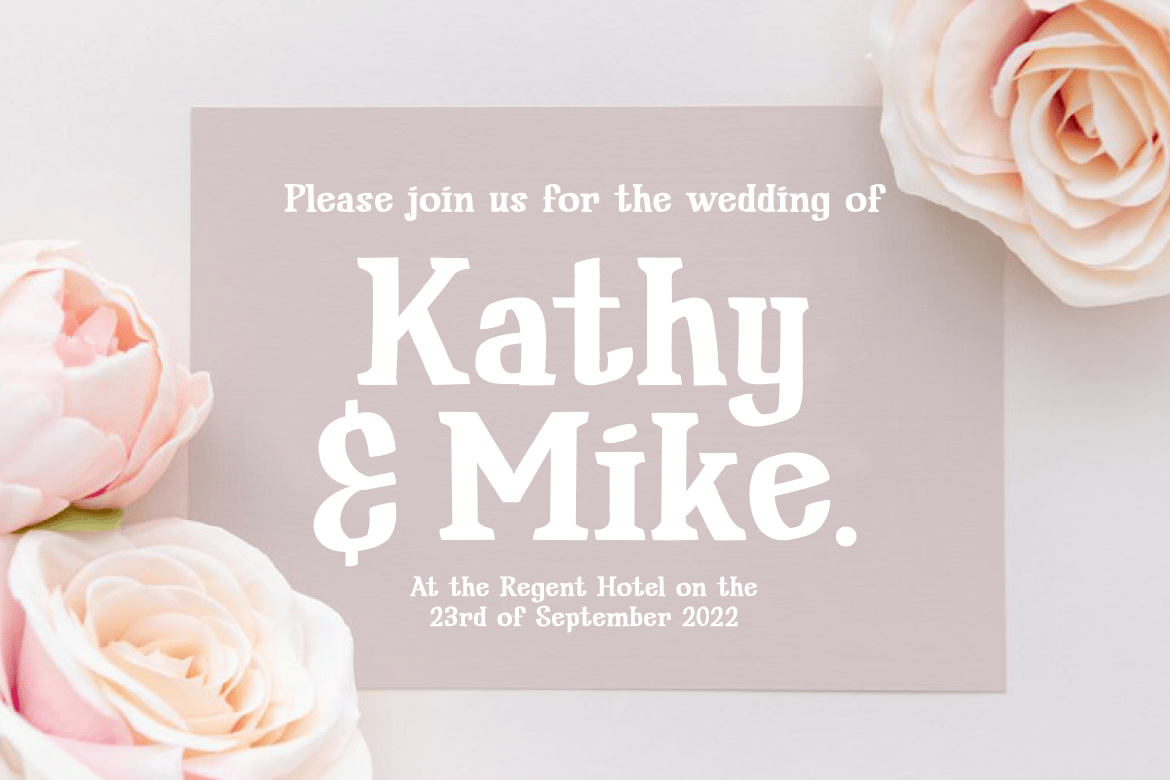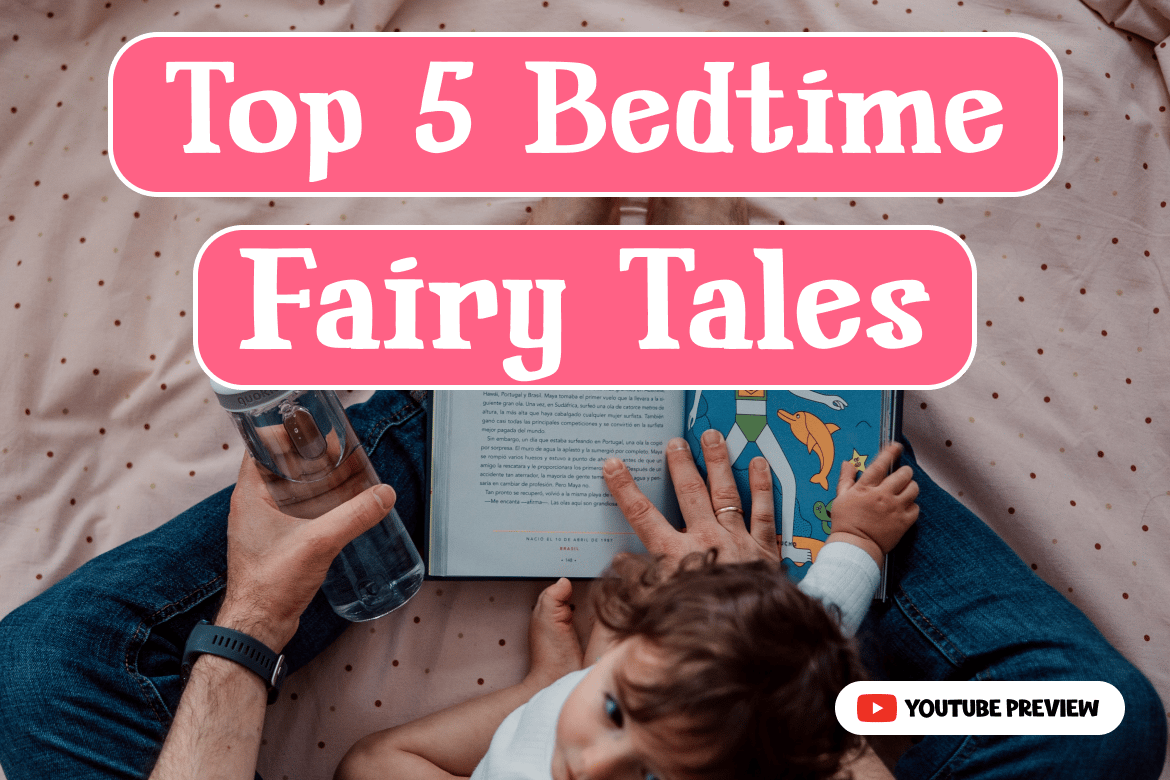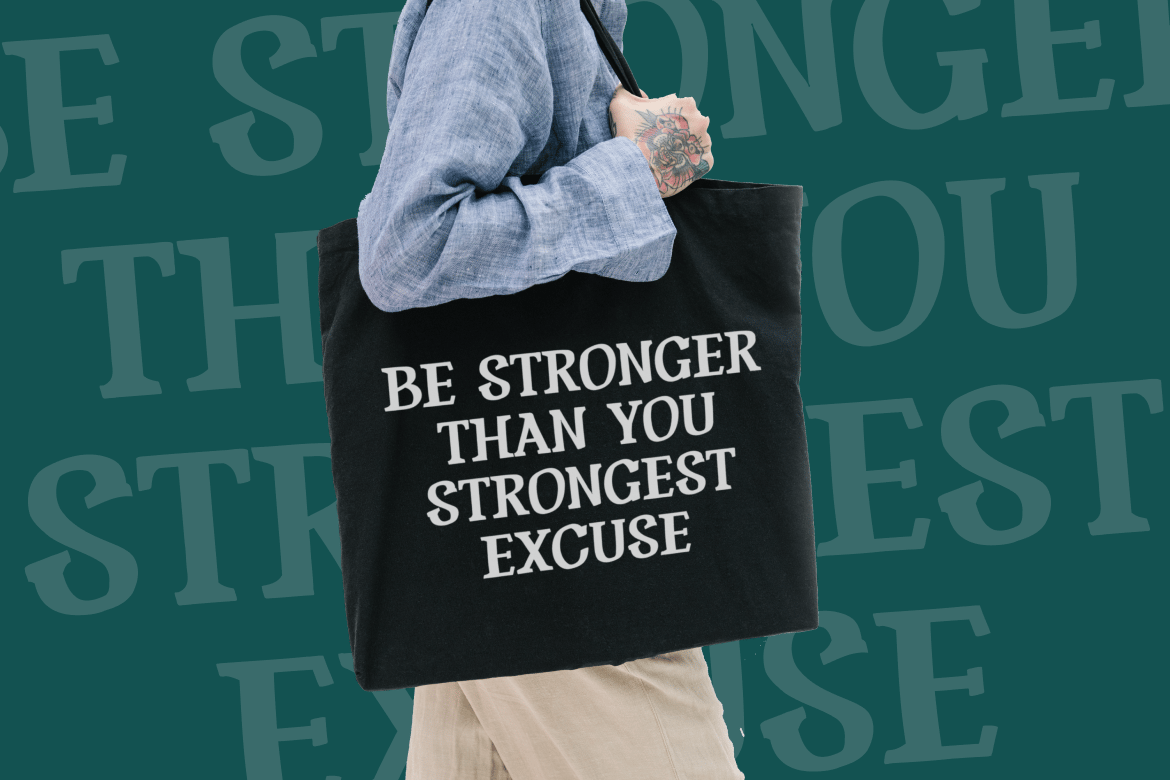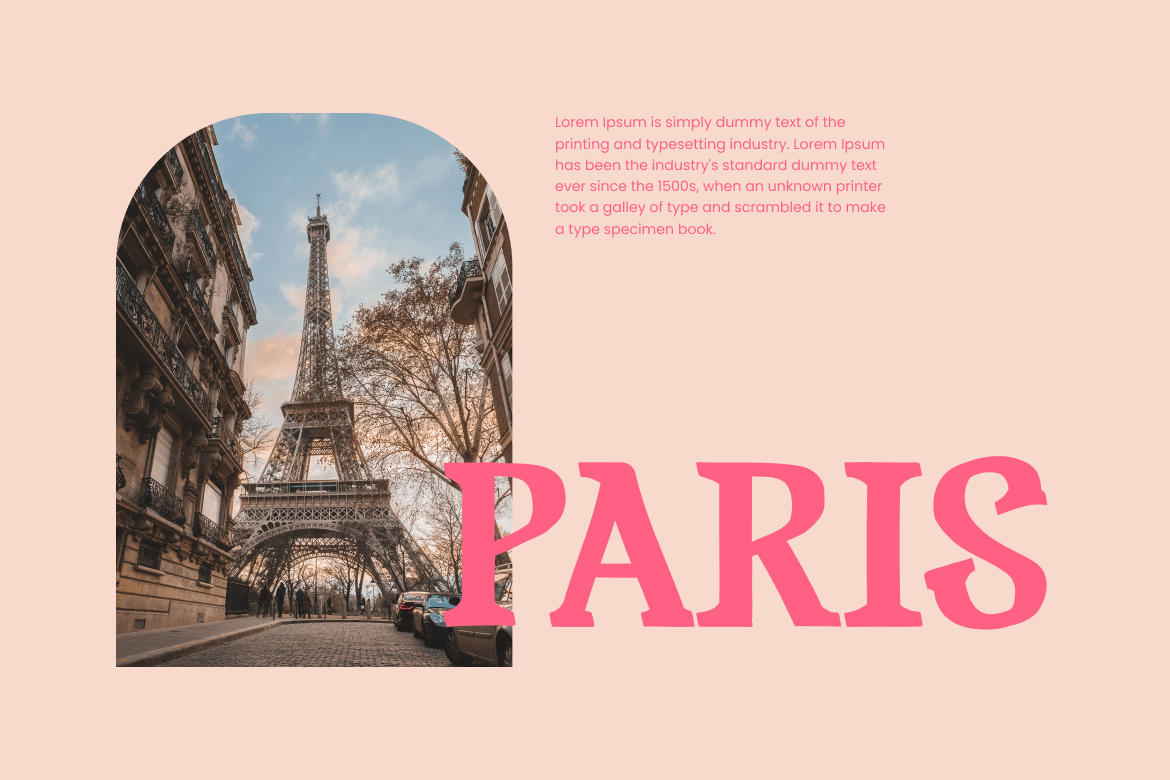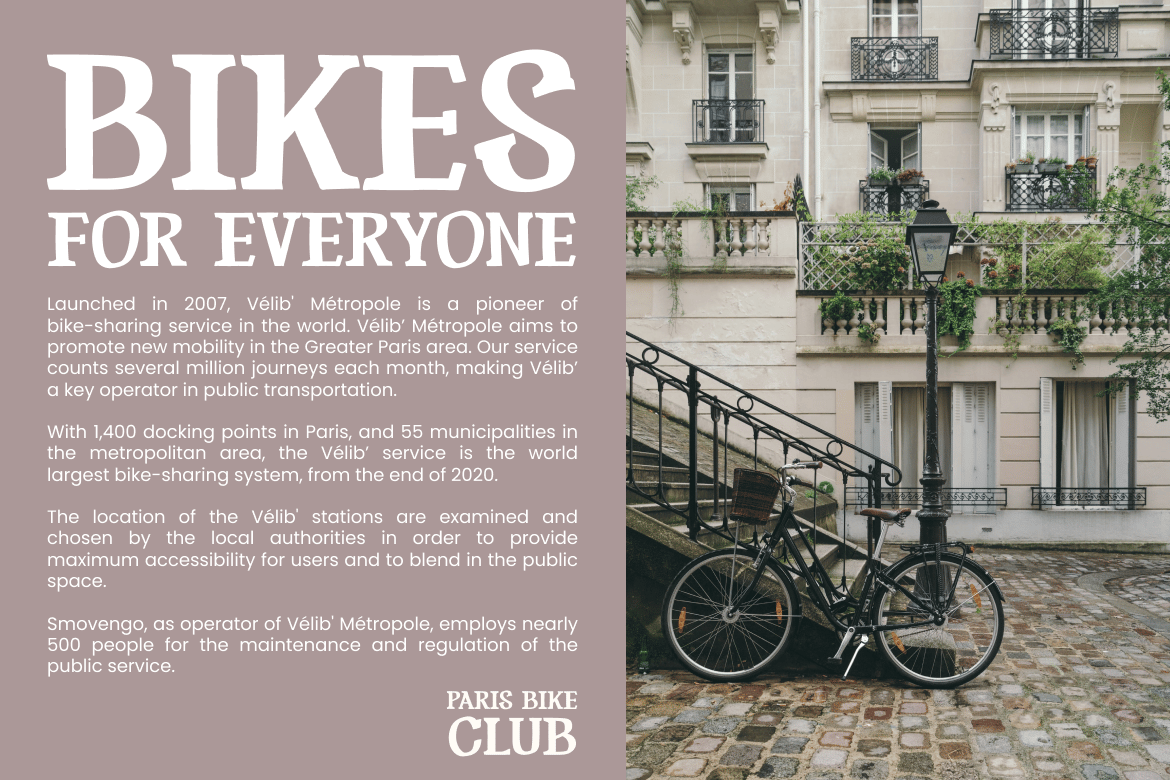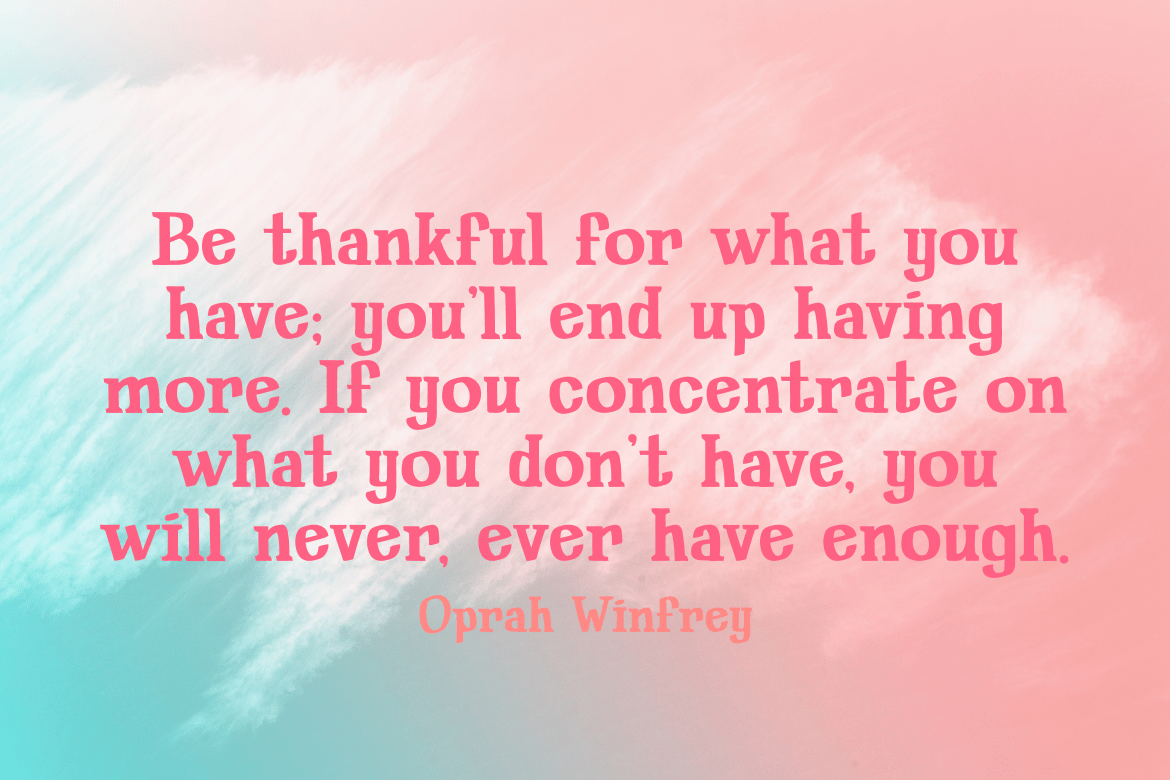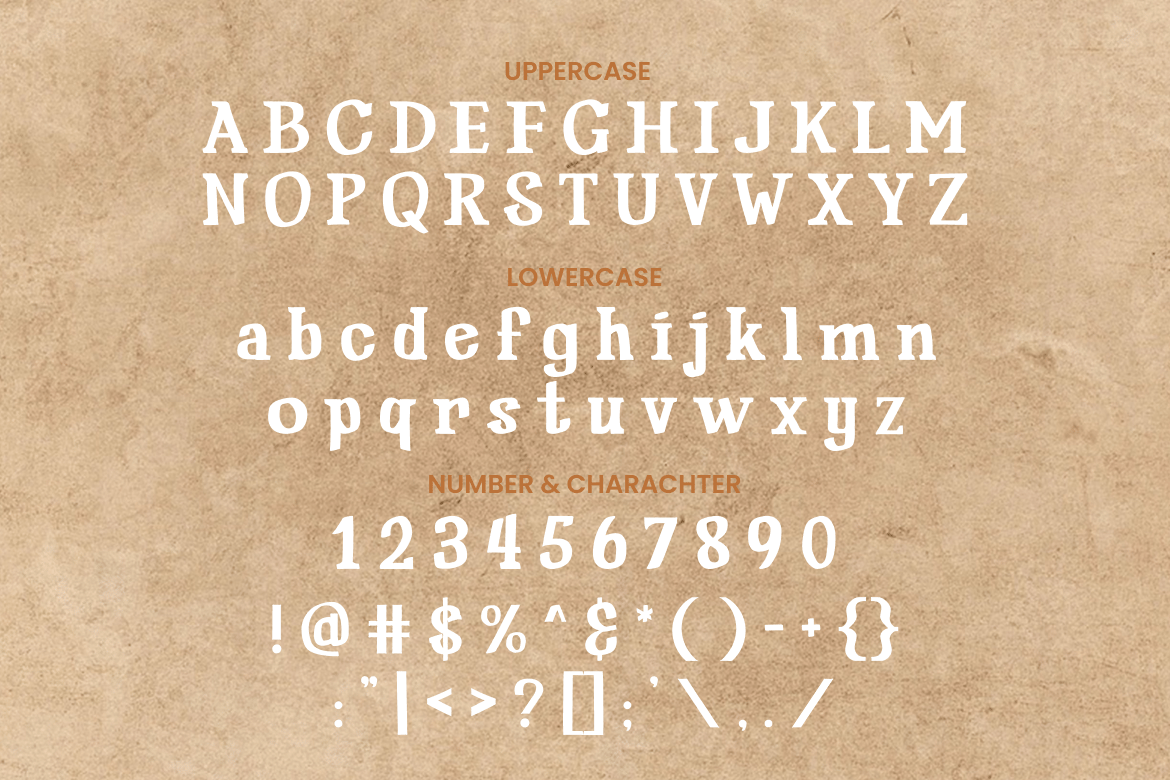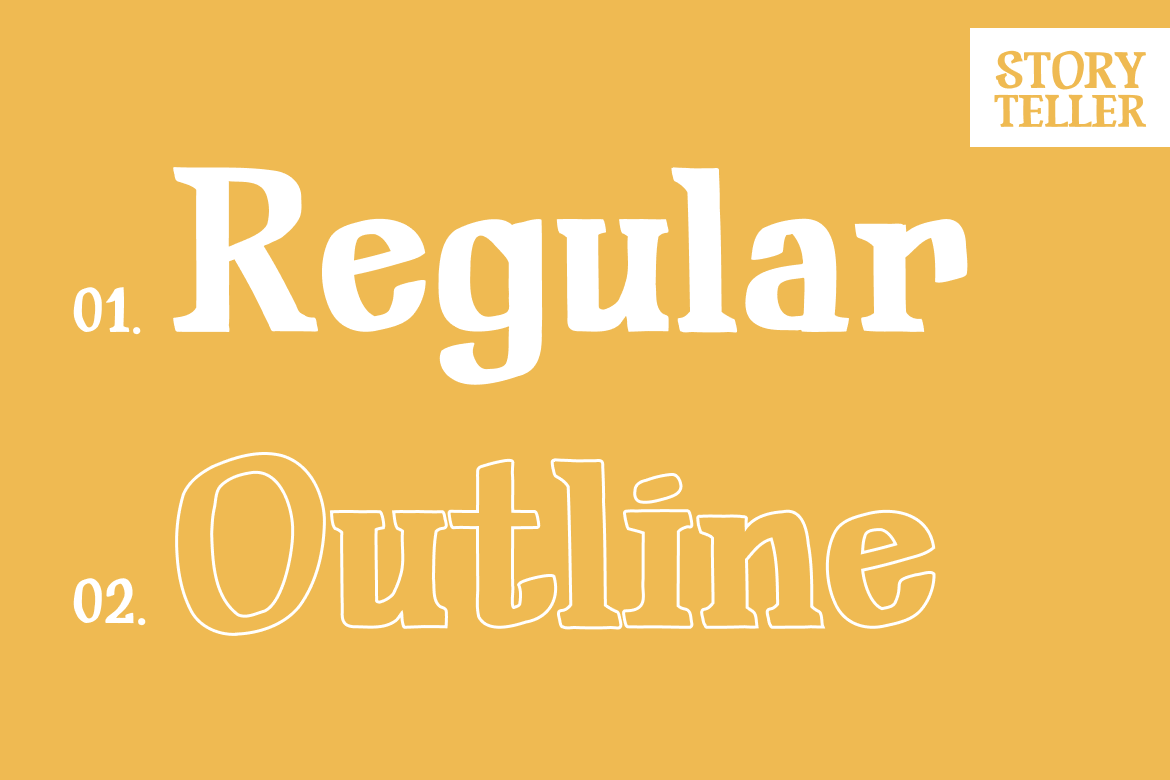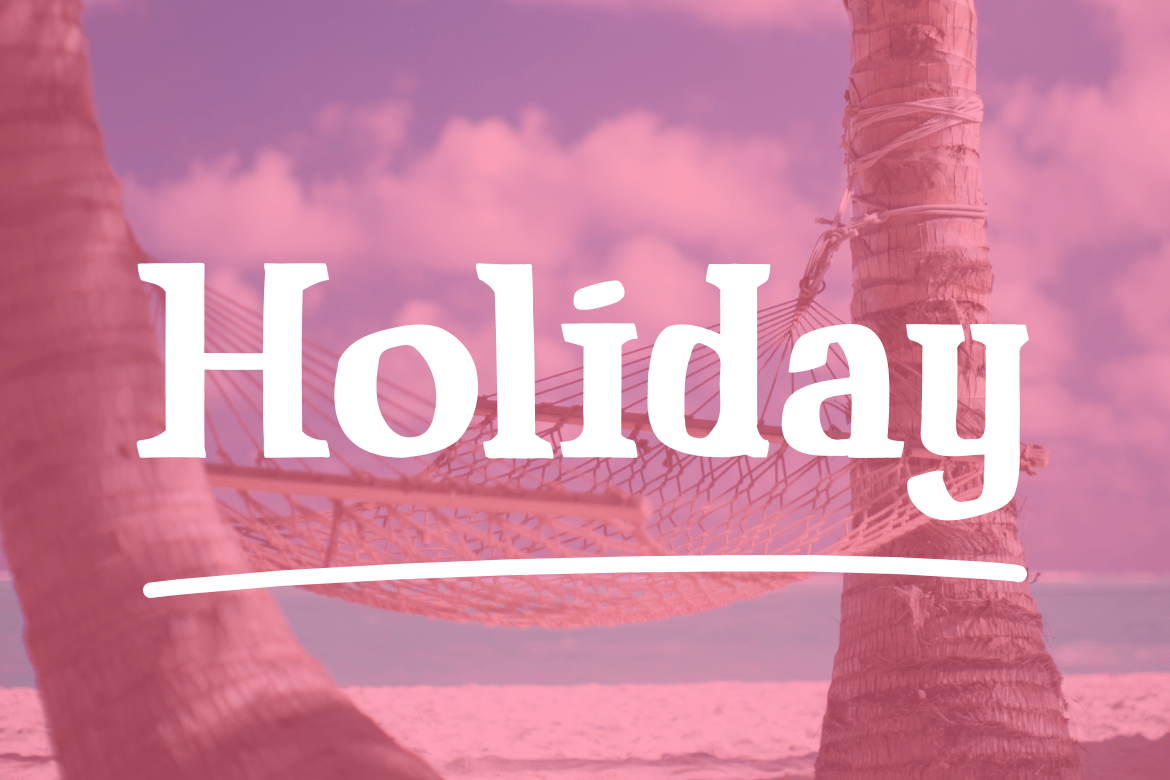
Storyteller – Girly Font
Storyteller – Cute font
It bring elegance, beauty, and a calming ambience towards the audience.
Suit perfectly for female segmented magazine, poster, movie title, music poster, youtube covers, youtube thumbnails, social media page covers and so on…
- Regular and Outline version